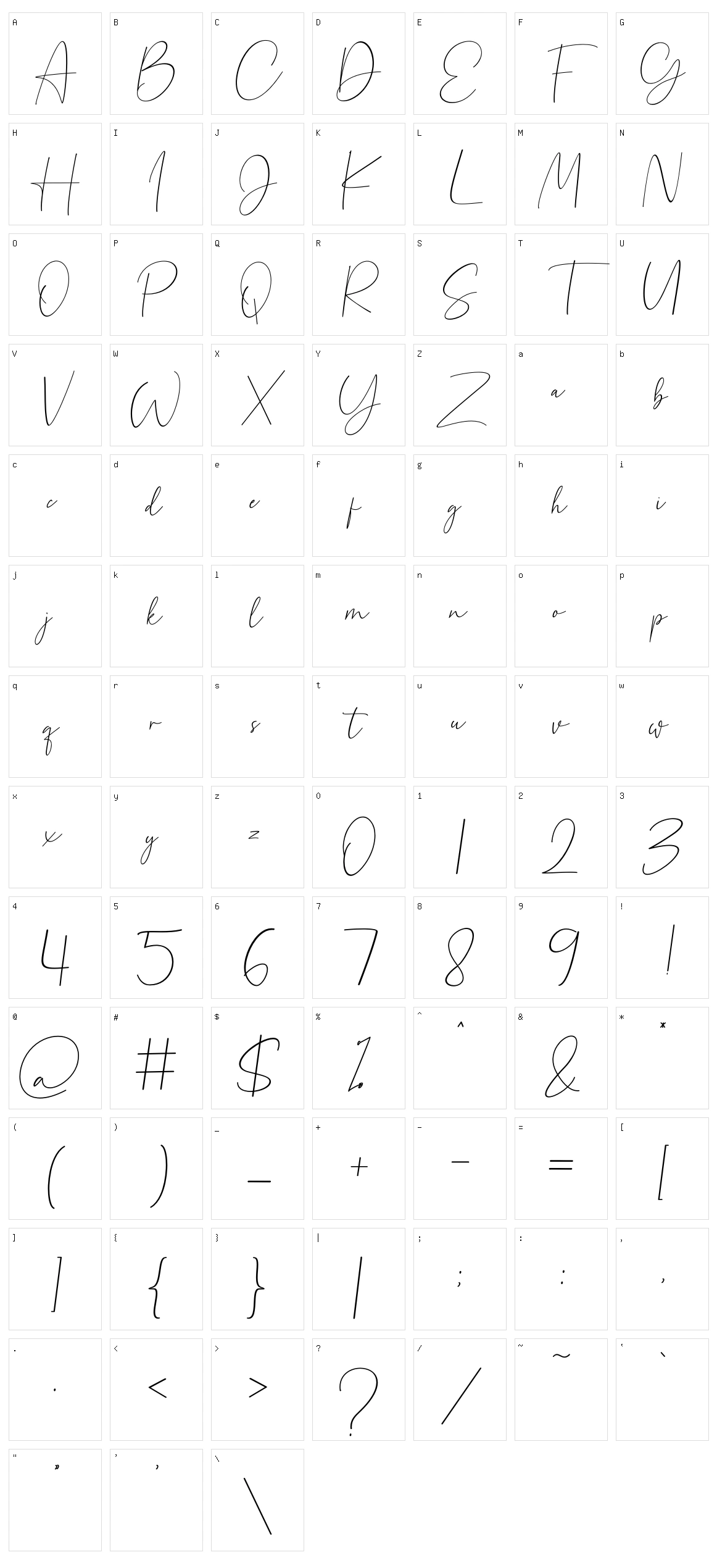
The free font Beholder is carefully designed by Fikryal studio, showcasing a thoughtful balance of creativity and usability and falls under the Script font style. When you download the ZIP file, it contains only 54.46 KB of font files, making it lightweight and quick to download. Please review the license details below to understand permitted usage and distribution rights. If license information is not available, we recommend using this font for personal projects only or contacting the author directly for commercial usage permissions.